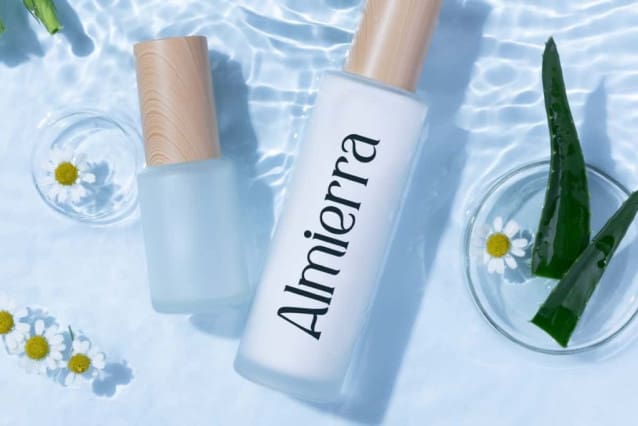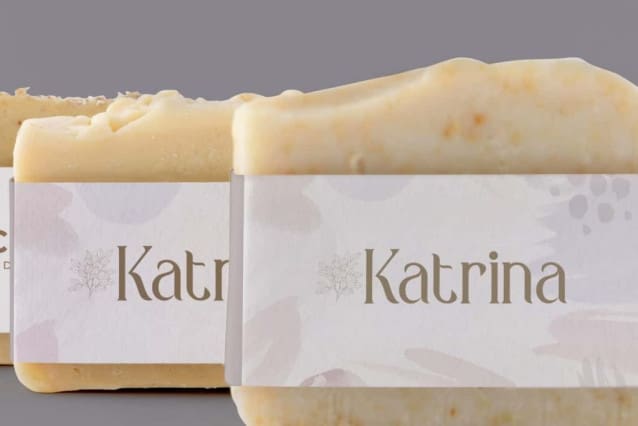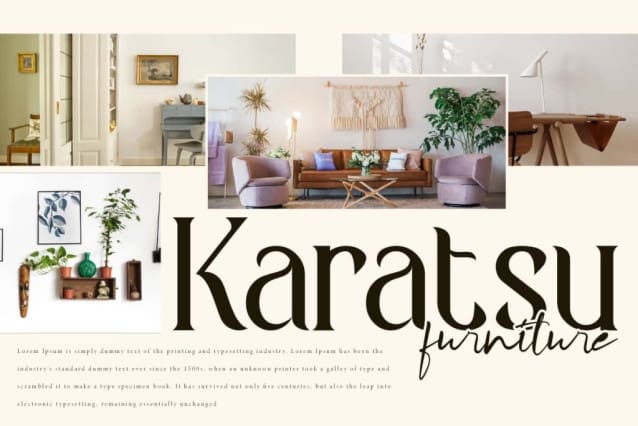
Karatsu Font
Karatsu Font is a fashionable modern serif font that offers a new exclusive looks. Typeface with elegant & stylish letter character shapes. This font collection covers all the beauty that exists and is certainly not to be missed. It is perfect for various designs such as billboards, business card, headers, labels, product packaging, stationery, tabloid, website, etc.
Karatsu Font contains a complete set of basic Uppercase and Lowercase characters, Numbers, Symbols and Punctuation. Apart from that, the thickness of the lines plays an important role in supporting the appearance of the font. Whether for personal or commercial use, it can serve your purpose well. Open your heart now and fall in love with this font! Ideal for boutique, furniture, handicraft, jewelry, skincare, and anything that requires a professional and impressive font.